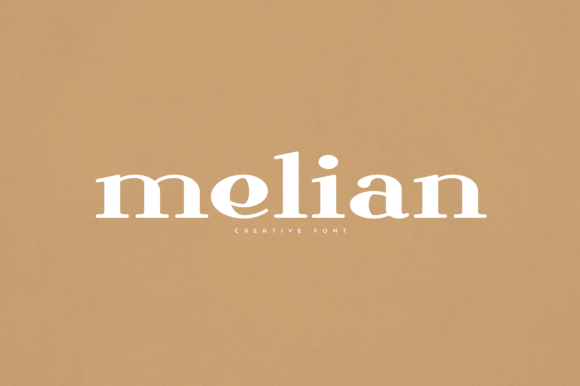
**Melian: The Quintessential Font for Unparalleled Elegance and Impact**
Step into the world of captivating typography with Melian, the serif font that elevates your words to new heights. Each letterform is meticulously crafted to allure and enchant, promising to turn your designs into visual masterpieces.
Unleash your creativity with Melian, a versatile font that adapts seamlessly to a myriad of design endeavors. Envision logos that radiate sophistication, branding that exudes charisma, headlines that command attention, and plain text that captivates with its timeless beauty.
Immerse yourself in a world of boundless possibilities, where Melian transforms your homeware designs into cherished keepsakes, product packaging into objects of desire, magazine headers into unforgettable statements, and background images into canvases of artistic expression.
Embrace Melian, the font that transcends the ordinary, granting your projects an allure that resonates with every viewer. Experience the power of typography that captivates, inspires, and leaves an indelible mark on the hearts and minds of your audience.